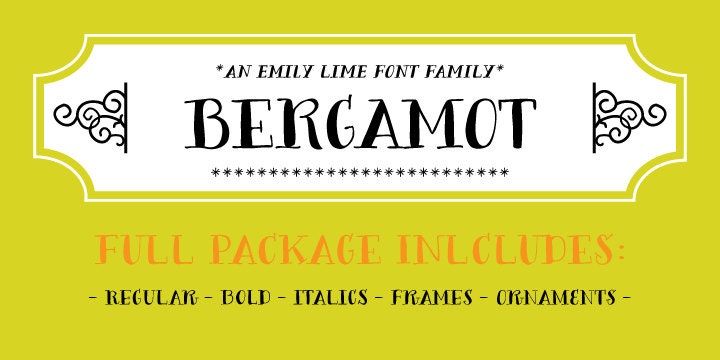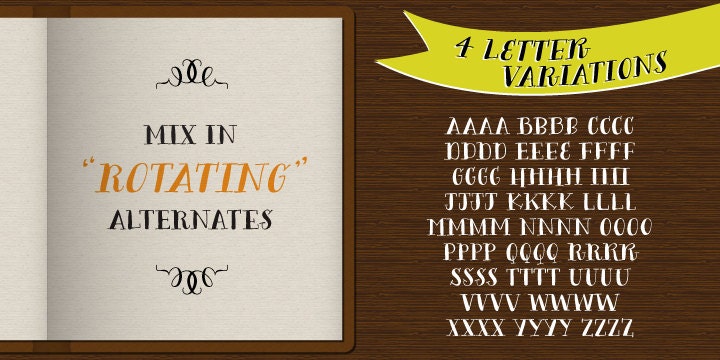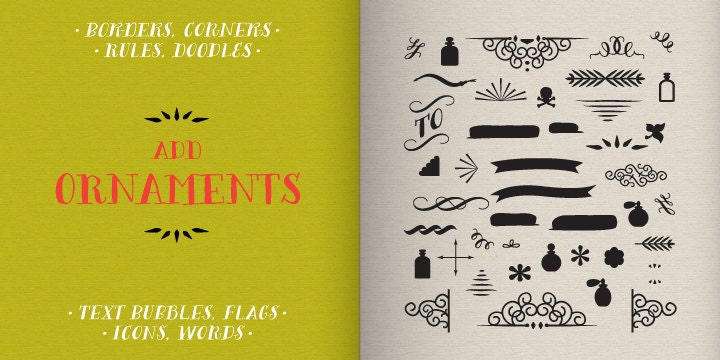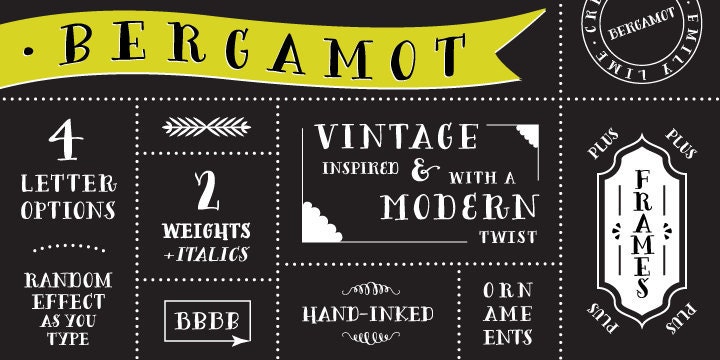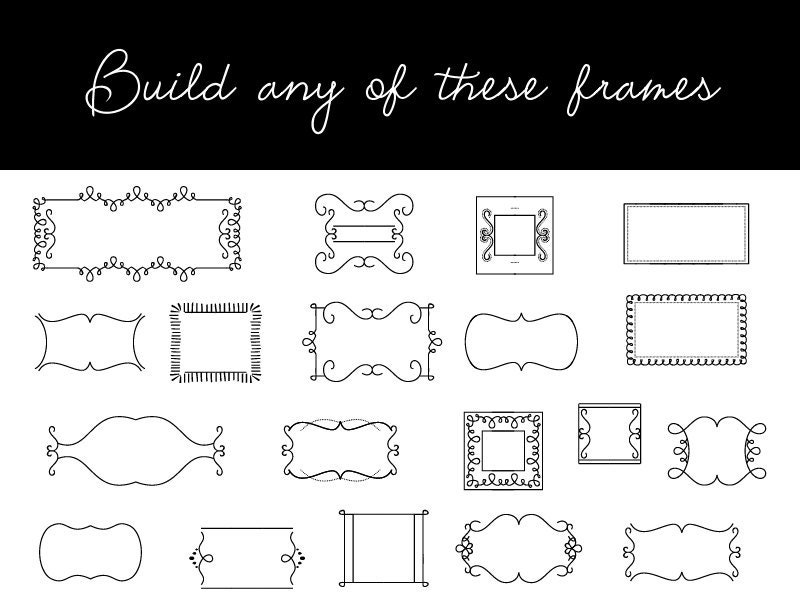
It features all caps plus 2 sets of alternates (so, 4 total variations for each letter). The coolest part… they intermingle randomly as you type! Ok, so it's not exactly random, but that's the easiest way to explain what you'll see. The letters are actually coded to rotate with their respective alternates. This effect is both useful or can be purely for fun!
Let's talk about the useful part for a sec… Repeating characters are often a dead giveaway that a font is being used. And sometimes we don't want that, right? We want to give the illusion that our design has been custom hand-lettered for a particular project… and can't be recreated by another. That's exactly what this font aims to do.
The randomizing effect is built into the Contextual Alternates feature and will likely be "on" automatically in your chosen program. Alas, even random doesn't guarantee that like characters won't appear in close proximity. So for those of you with access to the "Stylistic Alternates" feature, easily change repeated letters that are near each other simply by turning this feature "on". Voila! Custom…hand…lettering.